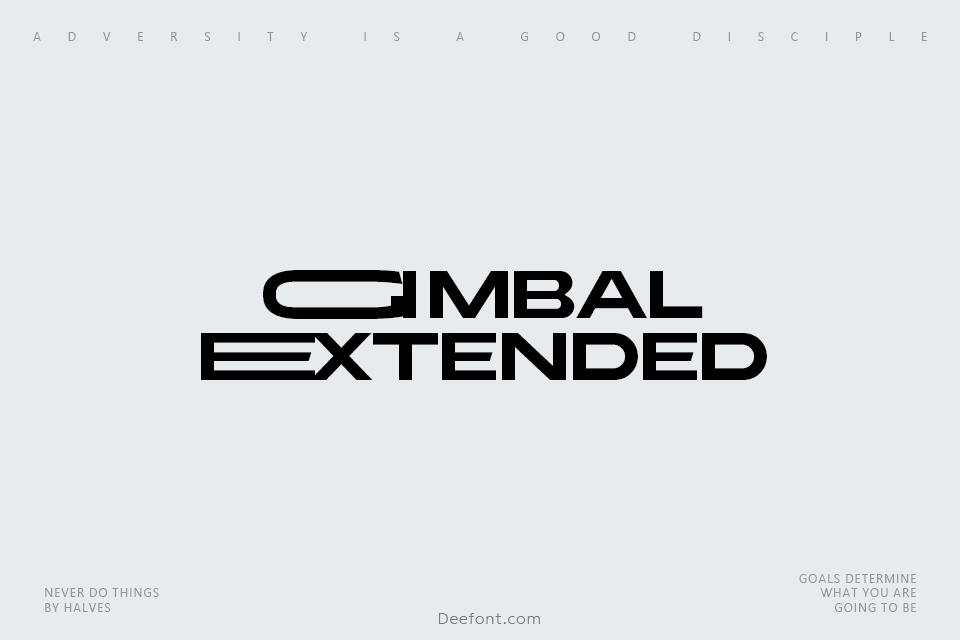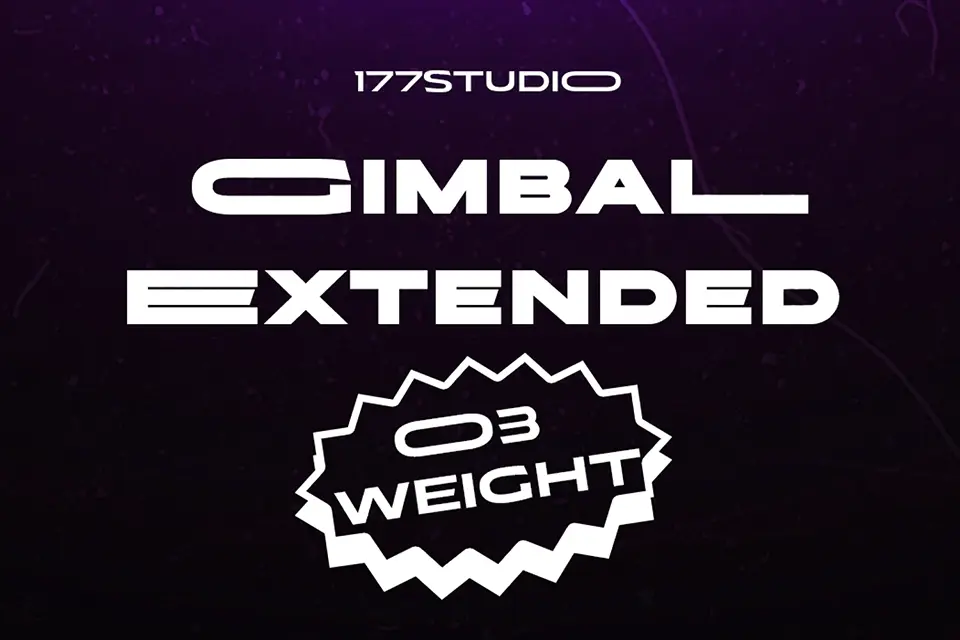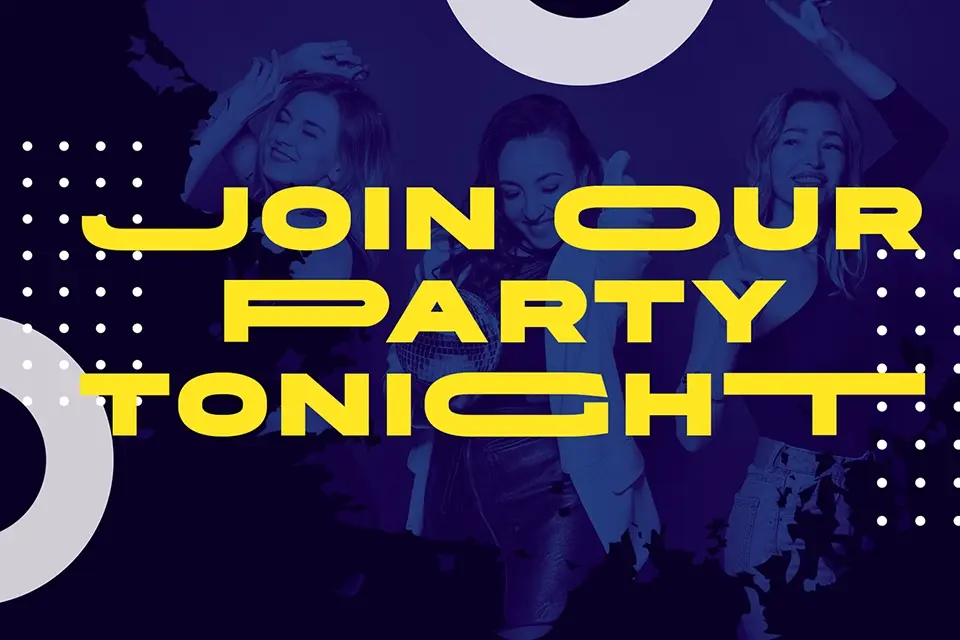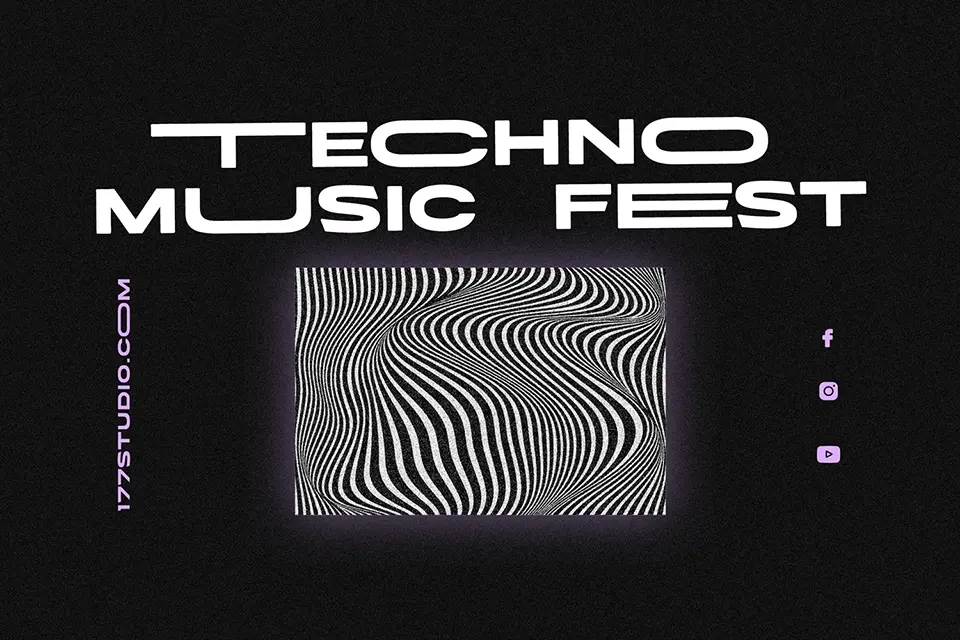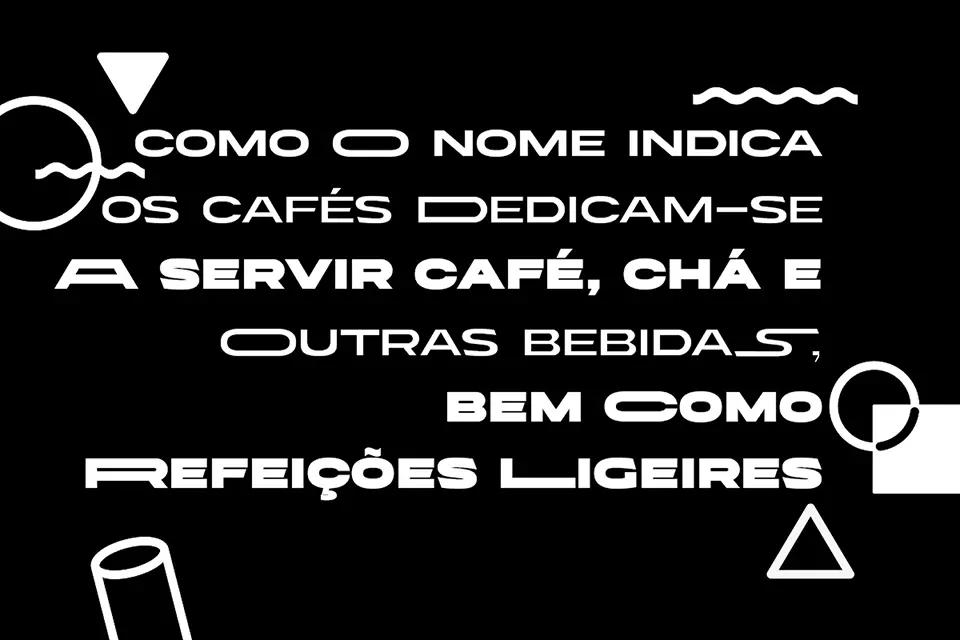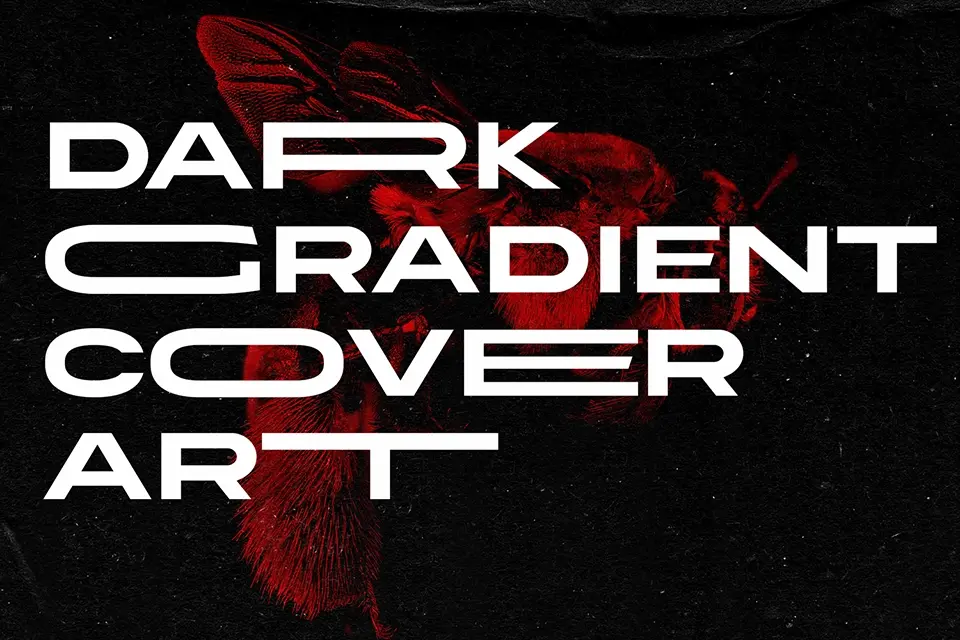
Gimbal Extended Font
Gimbal Extended is a modern sans-serif typeface designed for bold display and headline purposes. This contemporary font features wide proportions and clean lines, combining classic and contemporary elements to create a fresh and eye-catching aesthetic. With its sleek design and versatile character set, Gimbal Extended is ideal for logos, signages, posters, and digital designs. The font’s friendly appearance delivers a humanistic touch while maintaining professional quality, making it suitable for both web and print applications requiring strong visual impact.